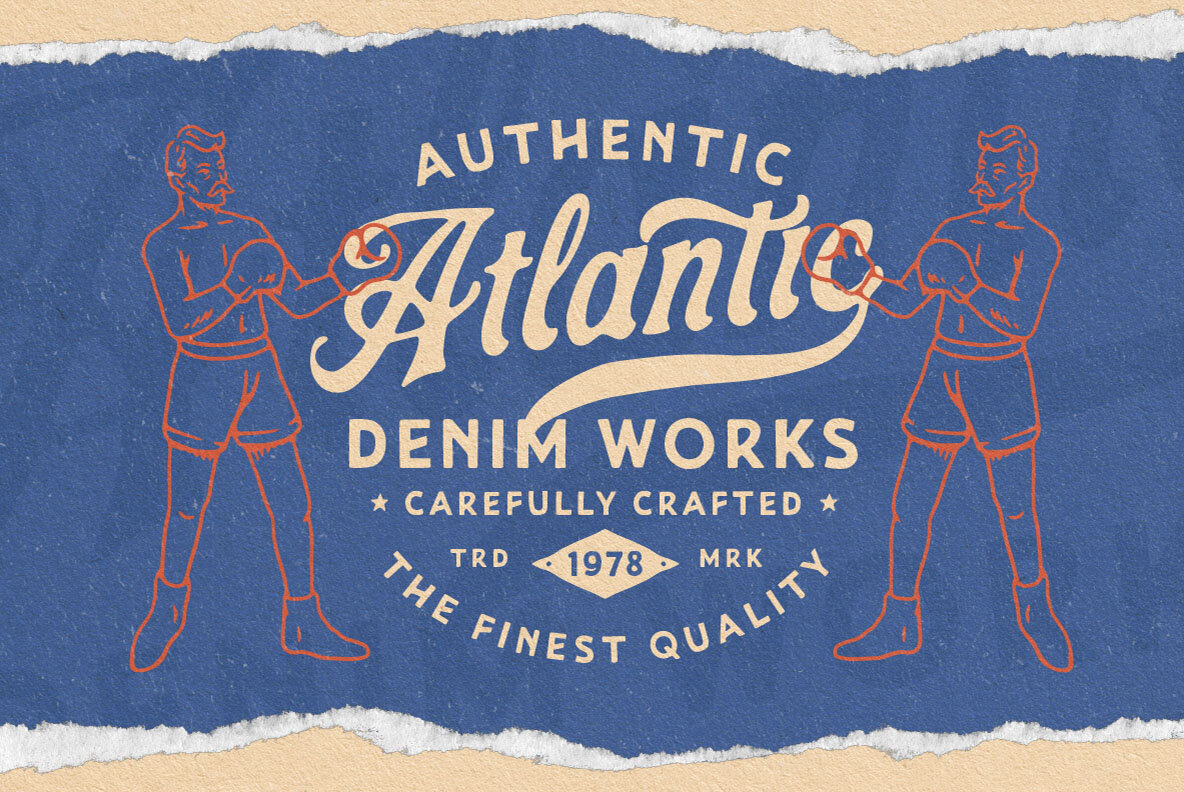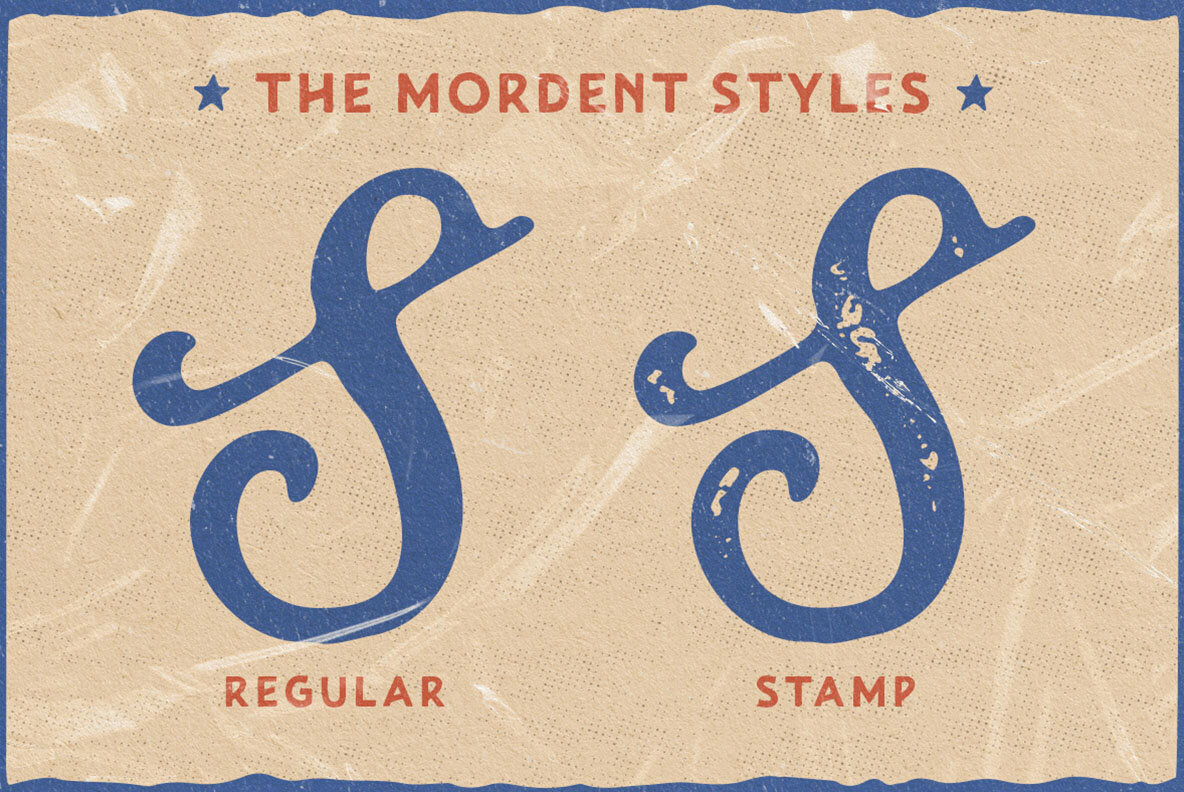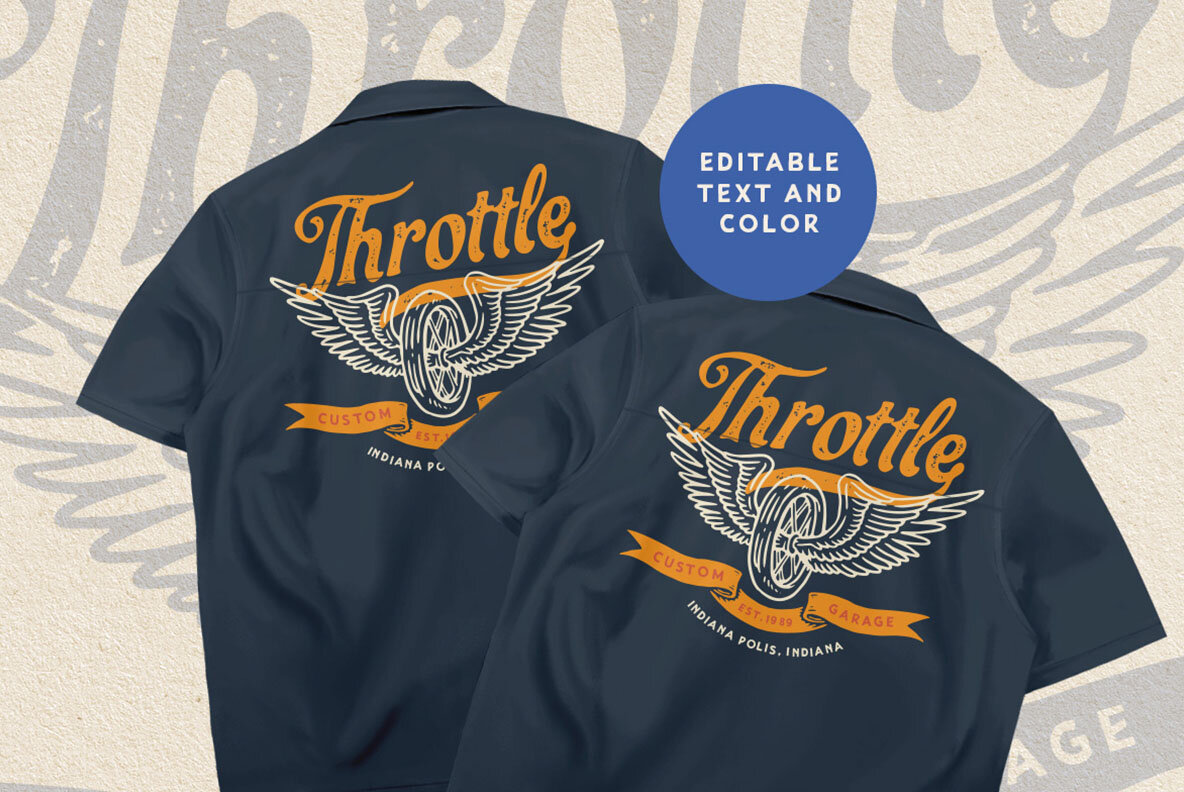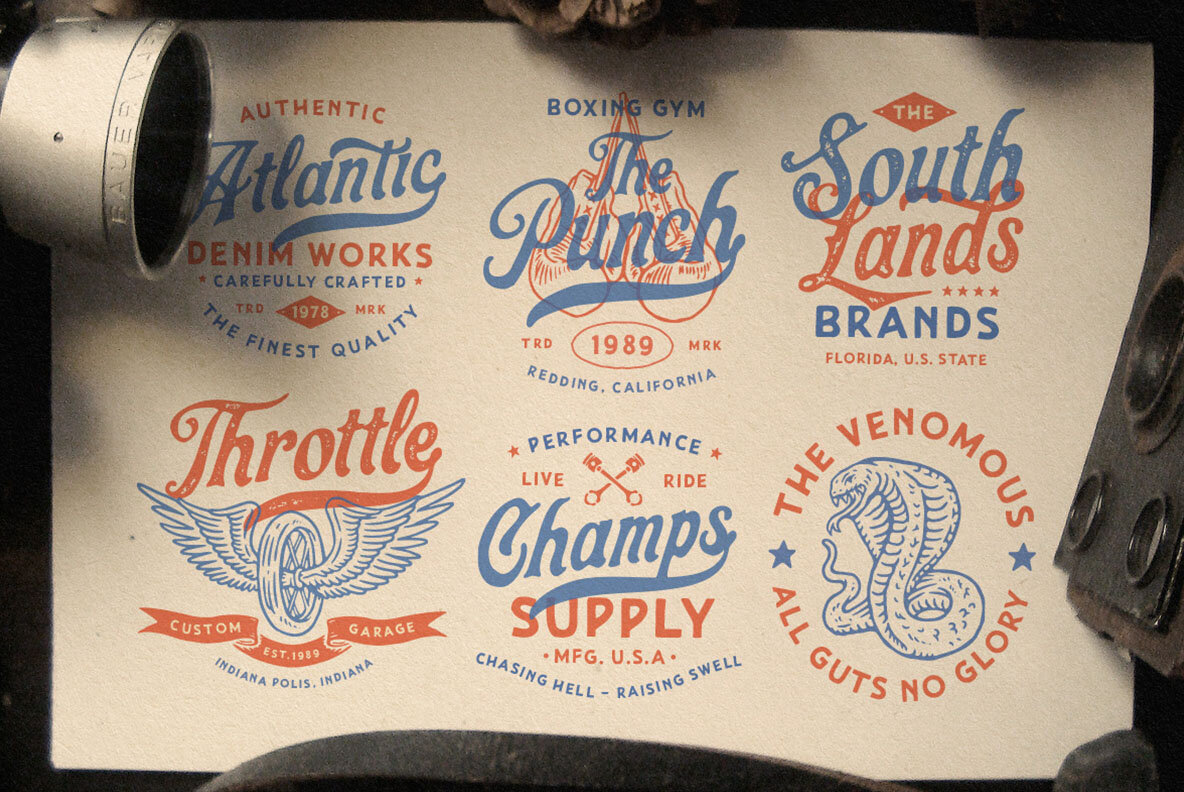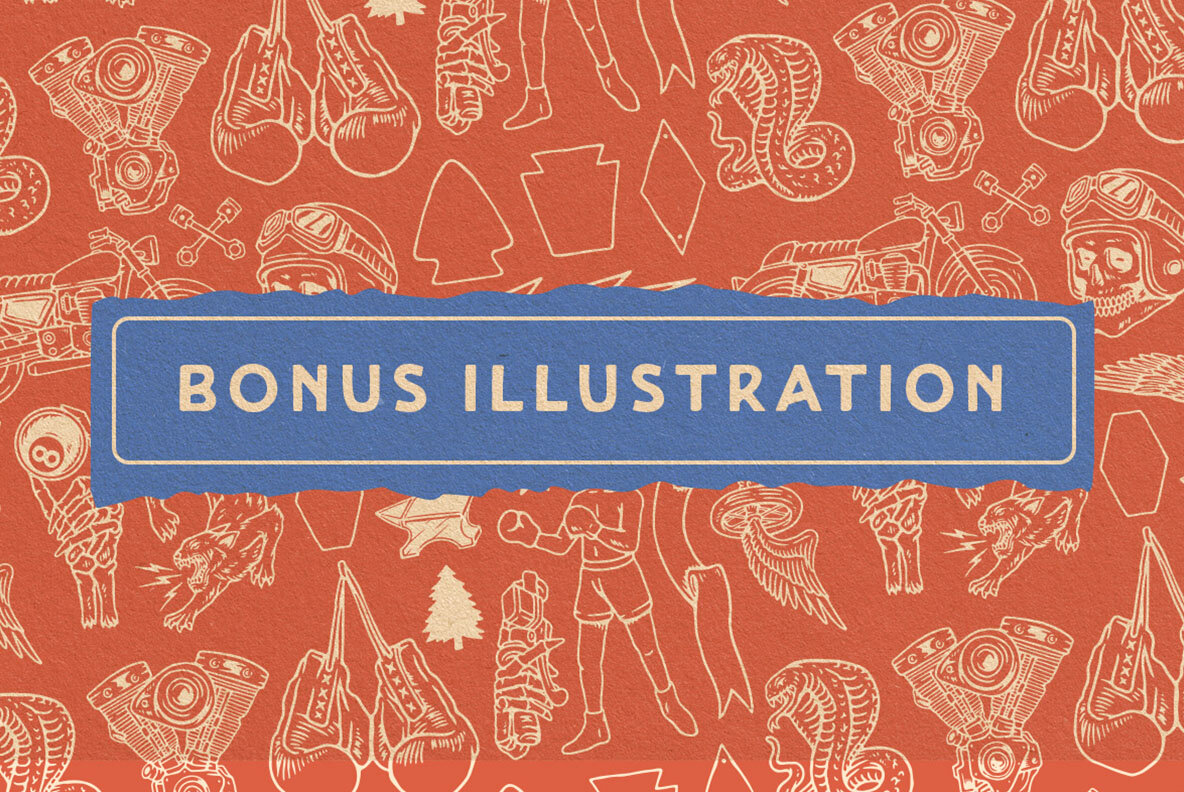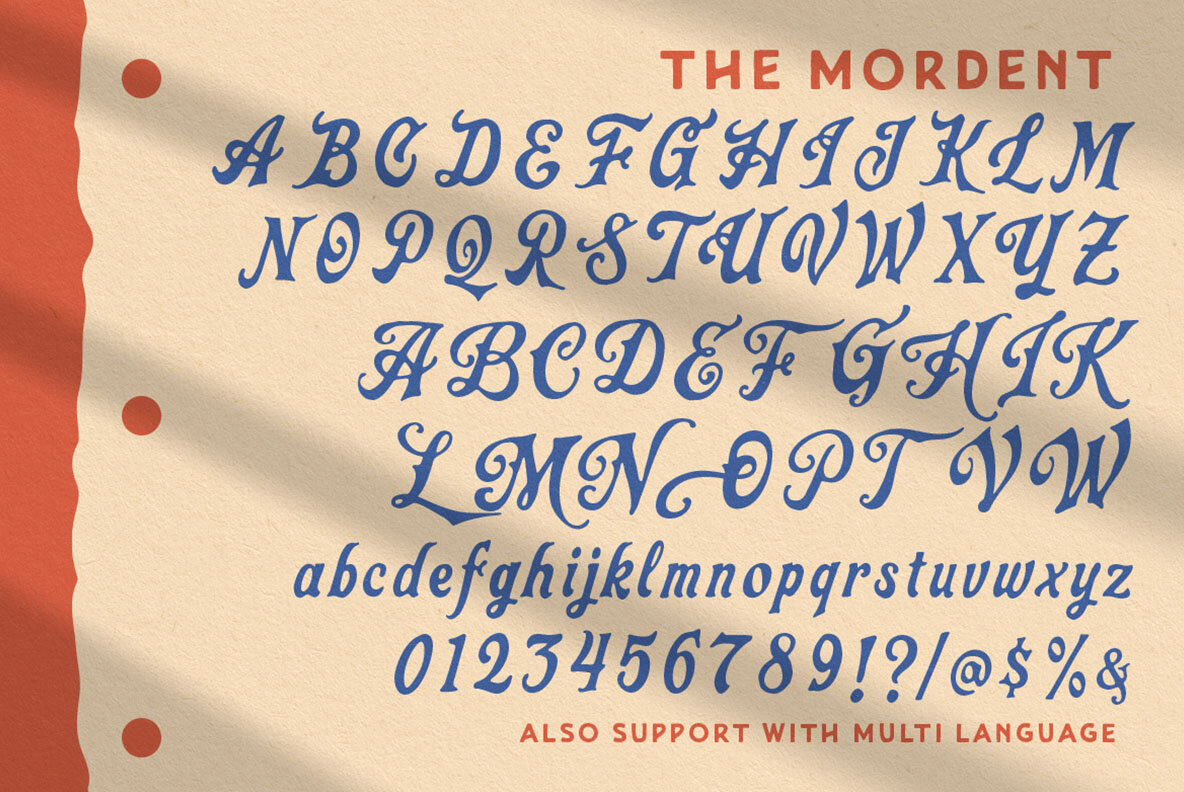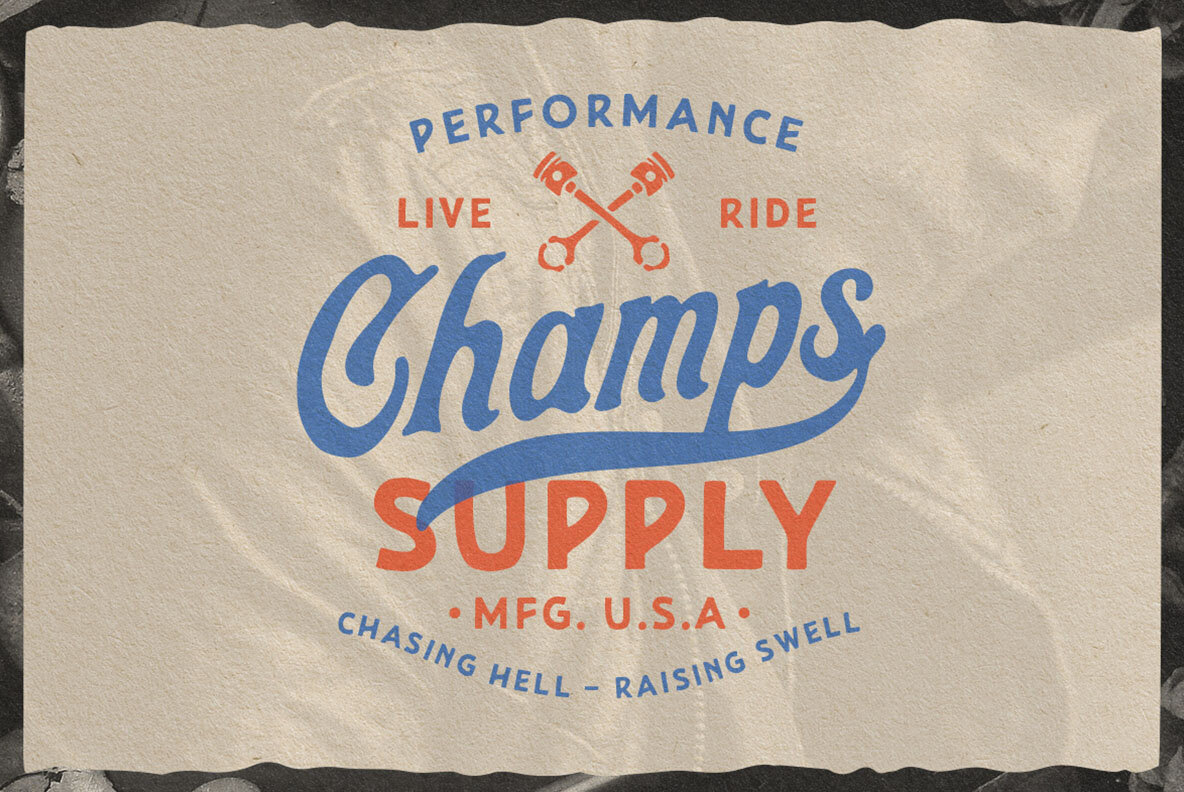
The Mordent Font
The Mordent is a meticulously hand-drawn display typeface offering an authentic vintage appeal. This versatile font is available in regular, stamp, and dingbats styles, promising to enhance the quality and creativity of your design projects, whether for branding, print, or logos. Accompanied by free illustrations and an editable logo pack, The Mordent caters elegantly to a wide range of graphic design needs. This font is compatible with popular design software, ensuring all characters are easily accessible in programs like Adobe Illustrator's Glyphs Panel and the Adobe Photoshop Character Open Type Panel.The Mordent: Organic Display Typeface with Vintage Flair